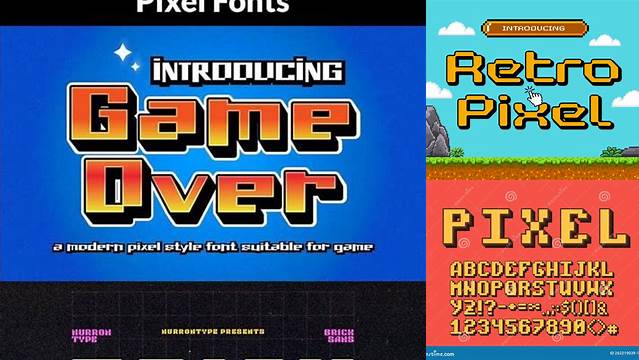
Pixel Fonts: Retro Typography For Modern Design
Are you looking to infuse your designs with a touch of nostalgia or a distinctly retro vibe? Then look no further than pixel fonts! These fonts, reminiscent of classic video games and early computer interfaces, are making a huge comeback in the design world. In this article, we'll dive deep into the world of pixel fonts, exploring what they are, their history, and how you can effectively use them in your projects. So, grab your 8-bit glasses, and let's get started!
What are Pixel Fonts?
Let's start with the basics: what exactly are pixel fonts? Unlike smooth, scalable fonts designed for print and modern displays, pixel fonts are created using a fixed grid of pixels. Each character is meticulously crafted, pixel by pixel, resulting in a distinctive blocky or bitmapped appearance. This unique characteristic is what gives them their retro charm, transporting us back to the era of classic arcade games and the dawn of personal computing. The charm and uniqueness of pixel fonts are rooted in their origin. The origins of these fonts can be traced back to the early days of computing when display technology was limited. With low screen resolutions and limited processing power, designers had to be creative and resourceful. They turned to pixel-based typography as a practical solution, and this limitation gave rise to a distinctive aesthetic that we now recognize and appreciate. Pixel fonts aren't just about aesthetics, though; they also carry a sense of nostalgia. For many, they evoke memories of playing classic video games, using early computer interfaces, or even browsing the web in its early days. This nostalgia factor makes them a powerful tool for designers looking to connect with audiences on an emotional level. When you use a pixel font, you're not just choosing a typeface; you're tapping into a shared cultural experience. The use of pixel fonts is a conscious choice to embrace the past while creating something new. It's a way to pay homage to the history of computing and design while pushing the boundaries of contemporary aesthetics. Pixel fonts often exude a sense of playfulness and fun, which makes them ideal for projects targeting younger audiences or those with an appreciation for retro culture. This playful quality can help your designs stand out and capture attention in a crowded digital landscape. Furthermore, the inherent simplicity of pixel fonts can actually be an asset in certain design contexts. Their clean, geometric shapes can provide clarity and legibility, especially in small sizes or on low-resolution displays. This makes them a practical choice for interface design, mobile apps, and other applications where readability is paramount. So, while pixel fonts may seem like a niche choice, their versatility and enduring appeal make them a valuable tool in any designer's arsenal.
The History of Pixel Fonts
To truly appreciate pixel fonts, it's essential to understand their history. Their story is intertwined with the evolution of computing and digital displays. In the early days of computers and video games, screen resolutions were incredibly low. This meant that traditional, smooth fonts simply wouldn't render well. Characters would appear blurry and distorted, making them difficult to read. To overcome this limitation, designers began creating fonts using individual pixels. Each letterform was painstakingly crafted on a grid, pixel by pixel, ensuring maximum clarity and legibility on these low-resolution displays. These early pixel fonts weren't just a design choice; they were a necessity. They were the only way to display text effectively on the technology of the time. As a result, they became the visual language of the digital world, shaping the way we interacted with computers and video games. One of the earliest and most iconic examples of pixel fonts can be found in classic arcade games like Space Invaders, Pac-Man, and Donkey Kong. These games, with their blocky characters and pixelated text, defined the aesthetic of the early 1980s. The fonts used in these games were simple yet effective, conveying information clearly while fitting the overall visual style. As personal computers became more widespread, pixel fonts continued to play a crucial role. Operating systems like MS-DOS and early versions of Windows relied heavily on pixel fonts for their user interfaces. These fonts were designed to be legible on the limited screen resolutions of the time, and they became instantly recognizable to anyone who used these systems. The rise of the internet in the 1990s brought new challenges for typography. Web browsers had limited font support, and designers needed to find ways to display text consistently across different platforms. Pixel fonts, with their simple, pixel-based structure, proved to be a reliable solution. They could be easily rendered in web browsers, ensuring that text looked the same regardless of the user's operating system or display settings. In recent years, there has been a resurgence of interest in pixel fonts. This revival is driven by a combination of factors, including nostalgia for the early days of computing and a desire to create designs with a unique, retro aesthetic. Today, pixel fonts are used in a wide range of applications, from video games and web design to branding and graphic design. They offer a distinctive look that can't be achieved with traditional fonts, and they provide a powerful way to connect with audiences who appreciate the history of digital culture.
How to Use Pixel Fonts Effectively
Now that you know what pixel fonts are and where they come from, let's talk about how to use them effectively in your designs. While their retro charm is undeniable, pixel fonts aren't always the right choice for every project. To make the most of them, it's important to consider the context, your target audience, and the overall message you want to convey. One of the key considerations when using pixel fonts is readability. Their blocky, pixelated appearance can make them difficult to read in large blocks of text, especially at small sizes. Therefore, it's generally best to reserve pixel fonts for headlines, titles, and short bursts of text. They excel at grabbing attention and creating a visual impact, but they may not be the best choice for body copy or lengthy paragraphs. The choice of pixel fonts can greatly influence the overall tone and style of your design. For instance, a pixel font with sharp, angular edges might convey a sense of edginess or technological sophistication, while a more rounded pixel font might feel playful and approachable. Think about the emotions you want to evoke and choose a font that aligns with your vision. Pixel fonts work exceptionally well in projects that aim to evoke a sense of nostalgia or pay homage to retro aesthetics. If you're designing a website for a classic video game, creating branding for a retro-themed event, or developing a mobile app with a vintage interface, pixel fonts can be a perfect fit. They instantly transport viewers back in time and create a strong connection to the past. However, don't feel limited to using pixel fonts only in retro-themed projects. They can also be used in more contemporary designs to add a touch of personality and uniqueness. A well-chosen pixel font can set your design apart from the crowd and make it more memorable. Experiment with different combinations and see how pixel fonts can complement other design elements. When incorporating pixel fonts into your designs, it's essential to consider the overall visual hierarchy. Because they tend to be attention-grabbing, pixel fonts should be used sparingly and strategically. Avoid overusing them, as this can lead to visual clutter and detract from the overall message. Instead, use them to highlight key elements and create focal points. It's also important to pay attention to kerning and letter-spacing when working with pixel fonts. Because of their fixed-width nature, pixel fonts can sometimes appear unevenly spaced. Adjusting the kerning and letter-spacing can help improve readability and create a more polished look. Finally, don't be afraid to experiment with different pixel font styles and sizes. There's a wide variety of pixel fonts available, ranging from simple and minimalist to intricate and decorative. Try out different options to see which ones best suit your project and help you achieve your desired aesthetic. By carefully considering these factors, you can use pixel fonts effectively to create designs that are both visually appealing and communicate your message clearly.
Conclusion: Embrace the Pixel
In conclusion, pixel fonts are a powerful design tool that can add a touch of retro charm and uniqueness to your projects. From their origins in early computing to their resurgence in modern design, pixel fonts have a rich history and a timeless appeal. Whether you're aiming for a nostalgic vibe, a technological aesthetic, or simply want to stand out from the crowd, pixel fonts offer a versatile and expressive typographic solution. By understanding their history, learning how to use them effectively, and exploring the many resources available, you can embrace the pixel and create designs that are both visually compelling and conceptually resonant. So, go ahead, experiment with pixel fonts, and let your creativity run wild! They can be a great way to give your project a distinctive and memorable look. Remember that choosing the right pixel font can significantly enhance the overall impact of your design, making it more engaging and effective. Pixel fonts are more than just a stylistic choice; they are a nod to the past, a celebration of digital culture, and a versatile tool for modern design. As you continue your design journey, consider how pixel fonts can help you tell your story, connect with your audience, and create a lasting impression. Don't be afraid to push the boundaries and explore the full potential of this fascinating typographic style. The world of pixel fonts is vast and varied, offering endless possibilities for creative expression. So, embrace the pixel, and let your imagination soar!